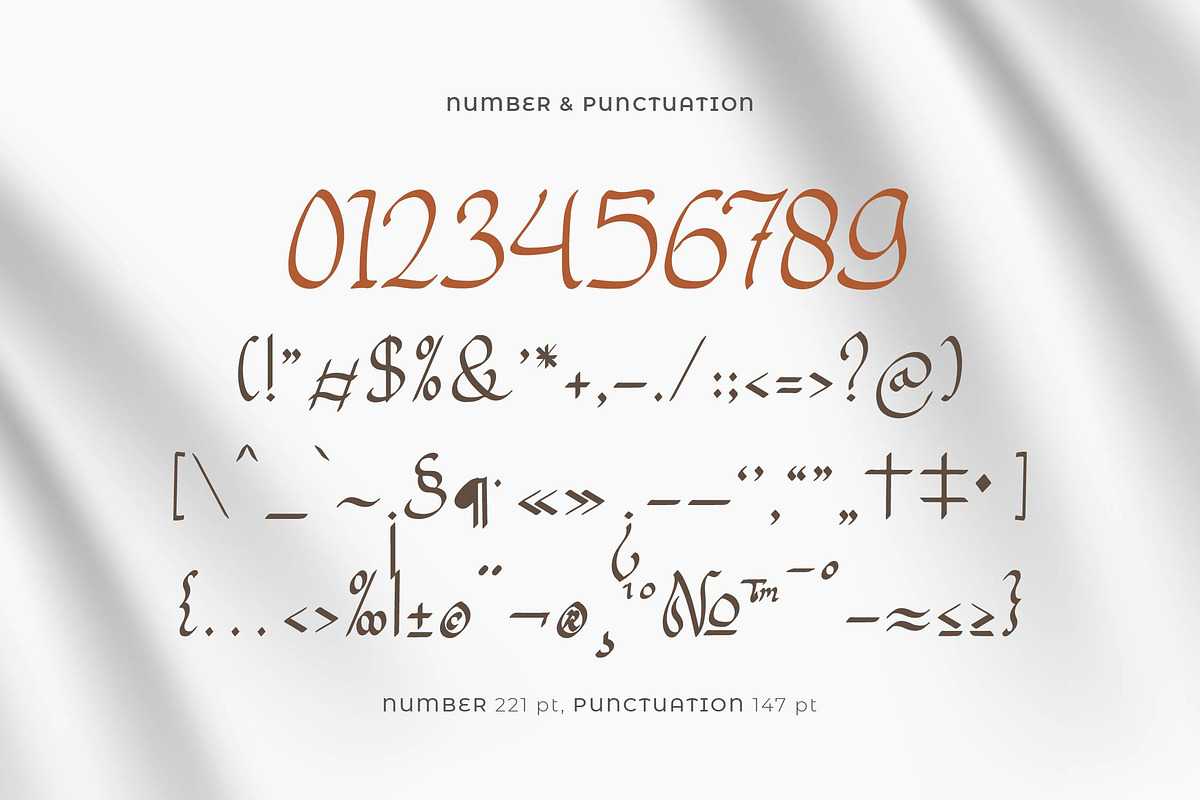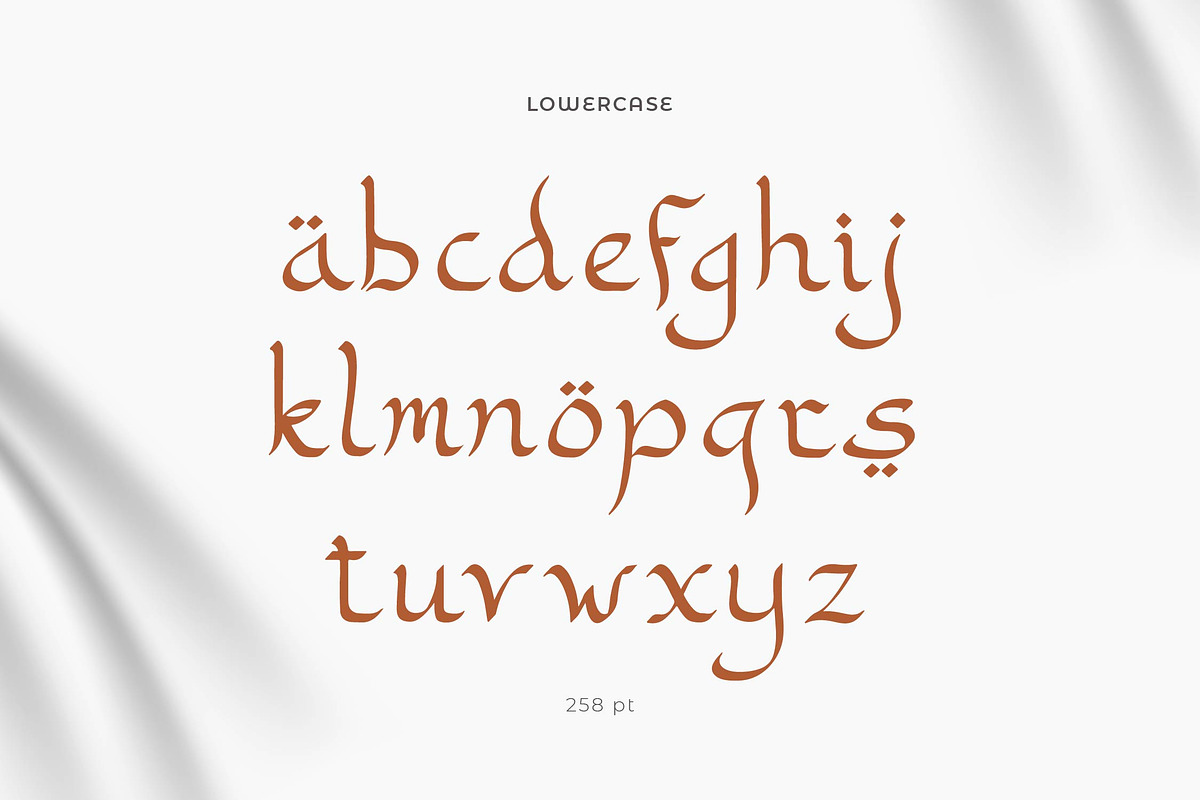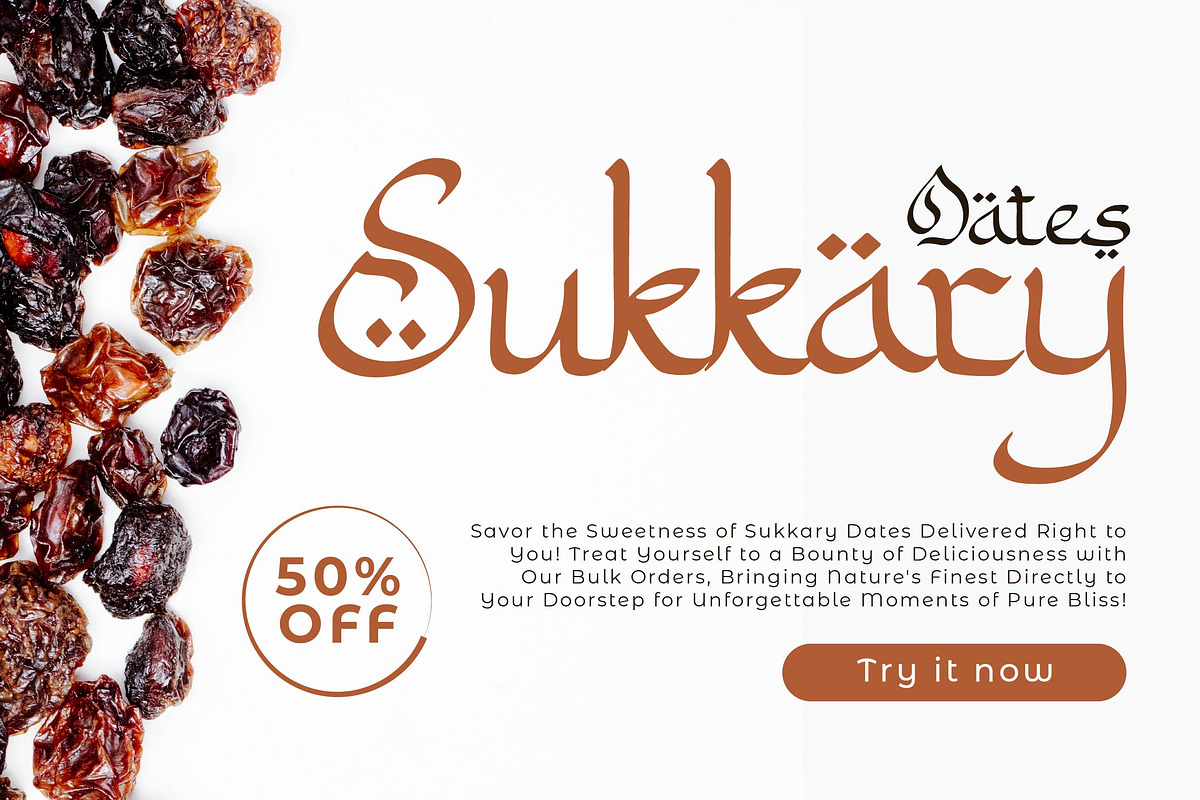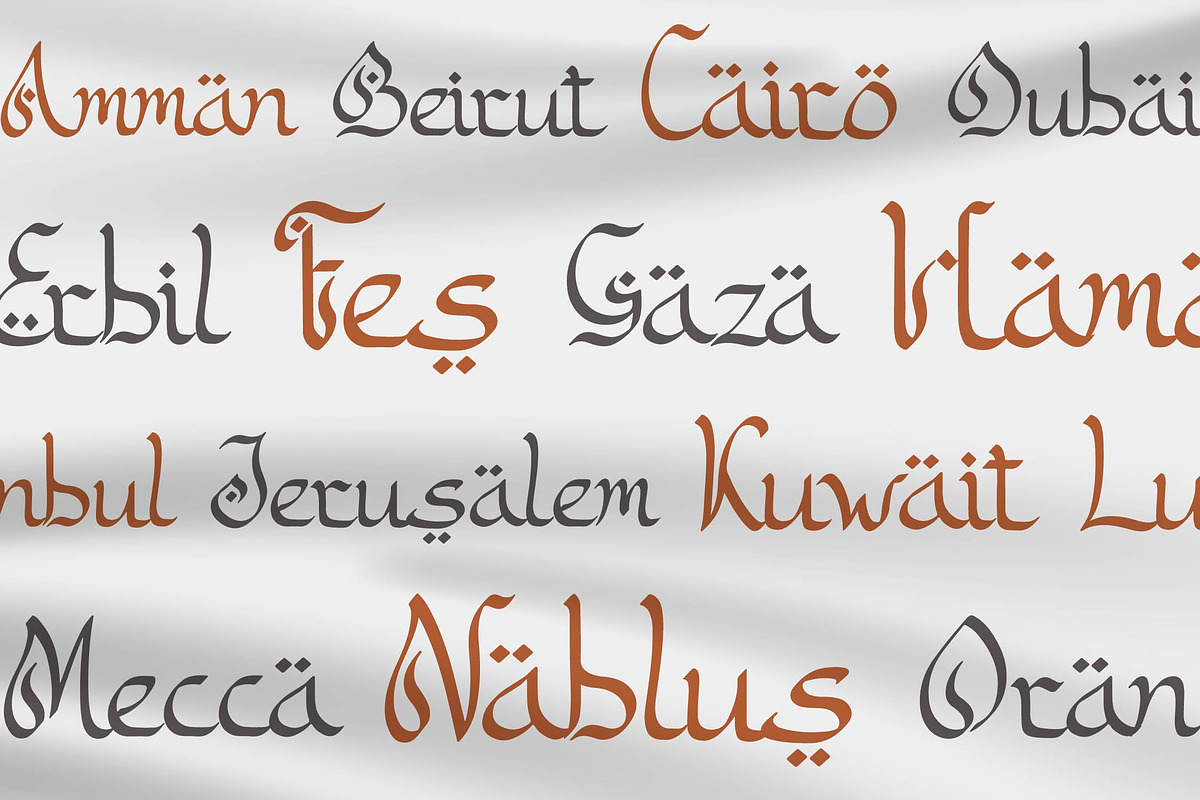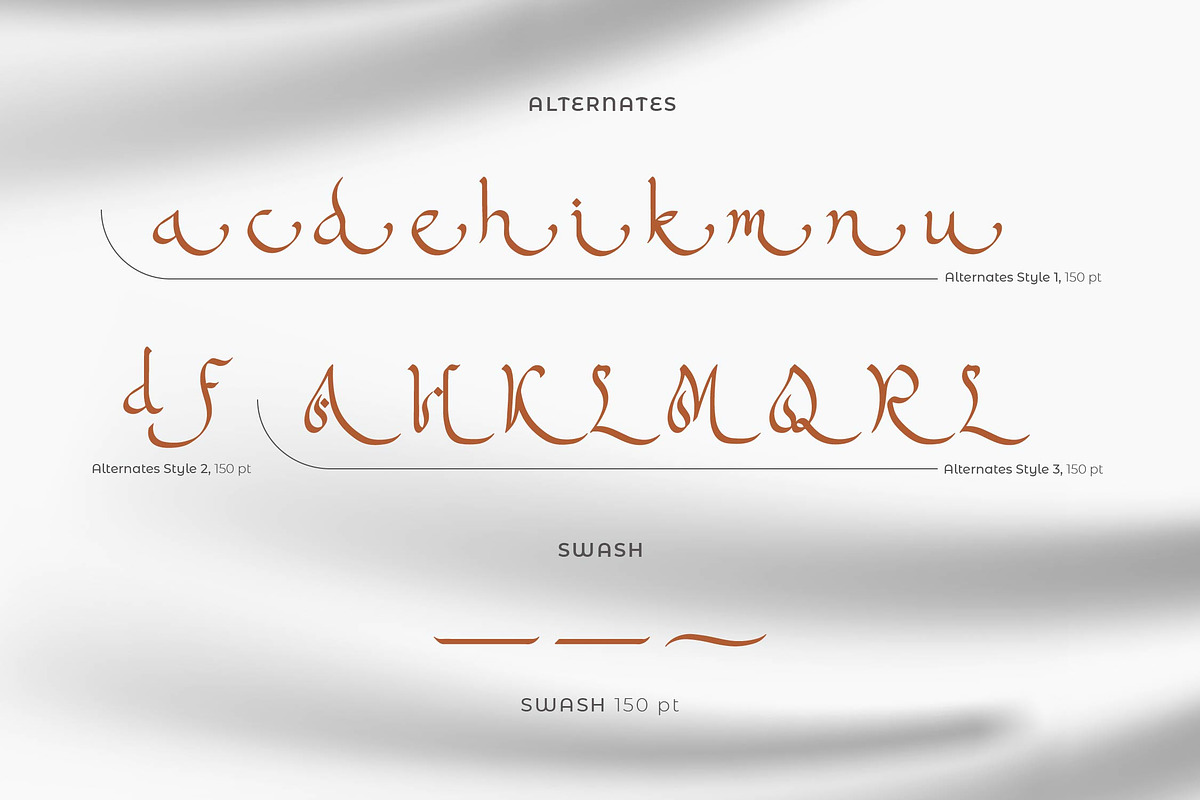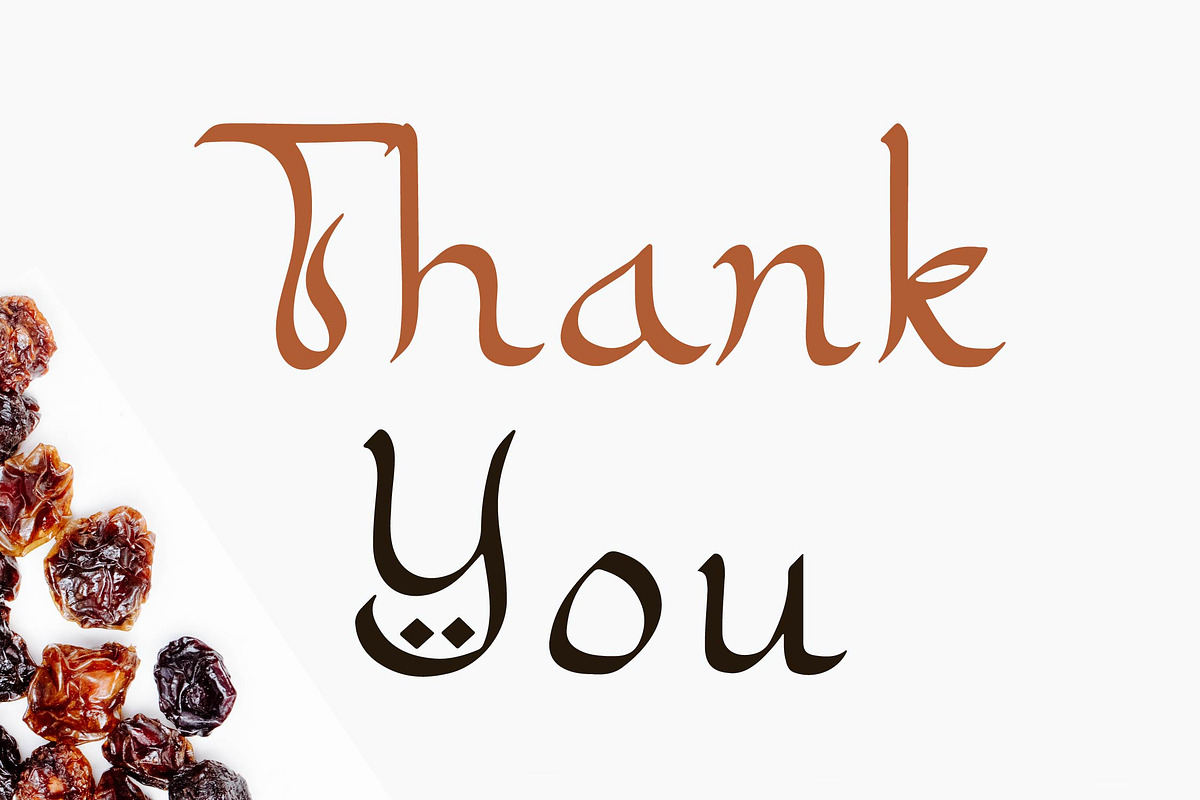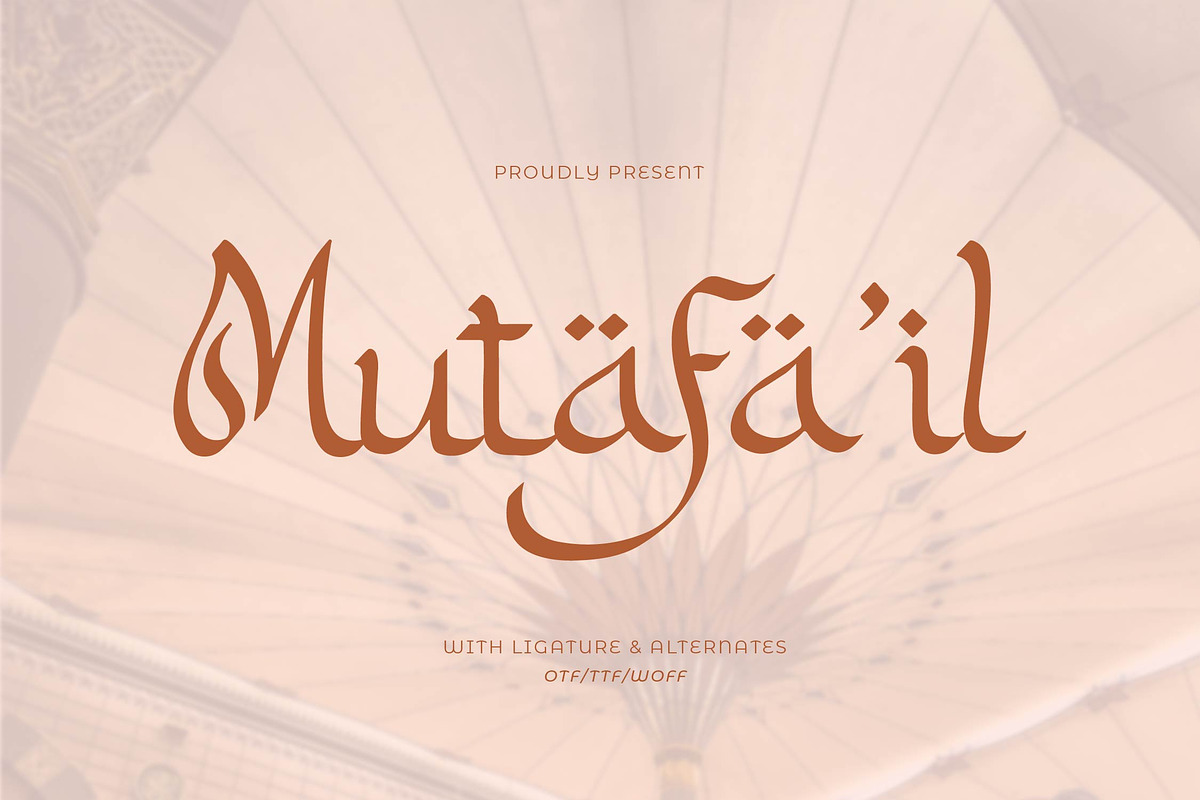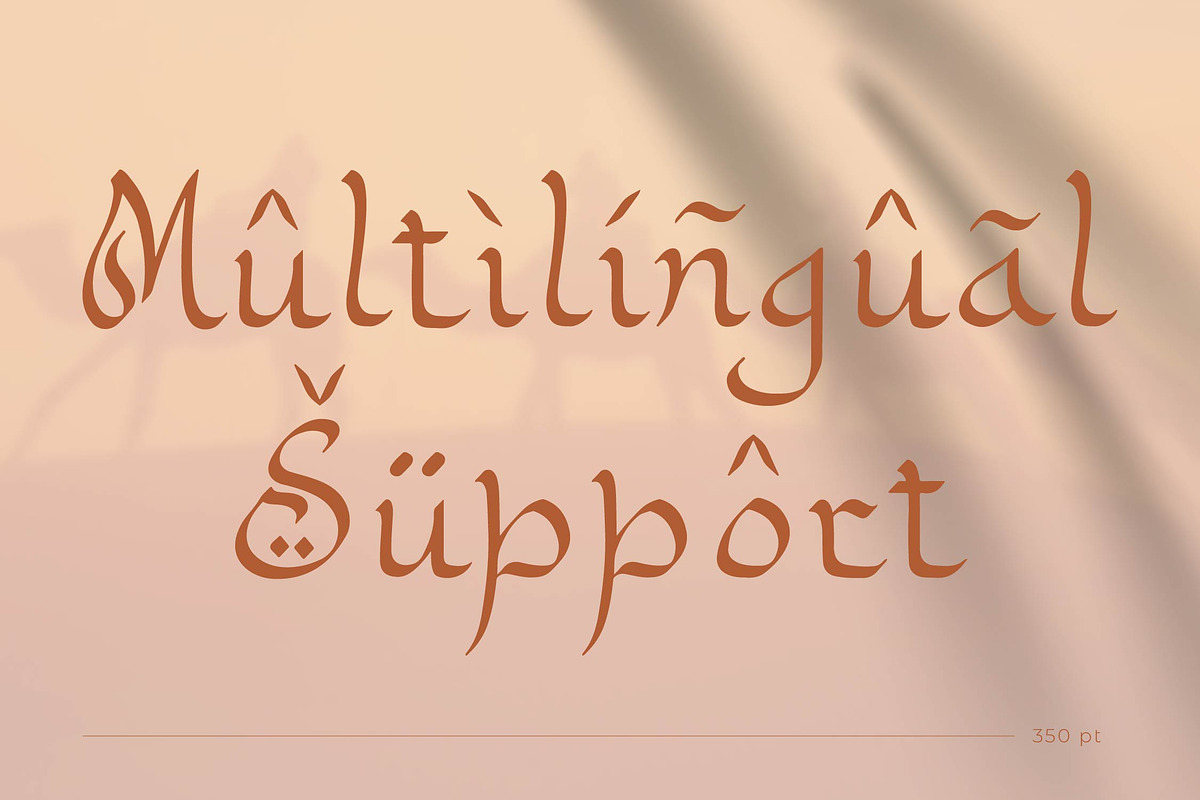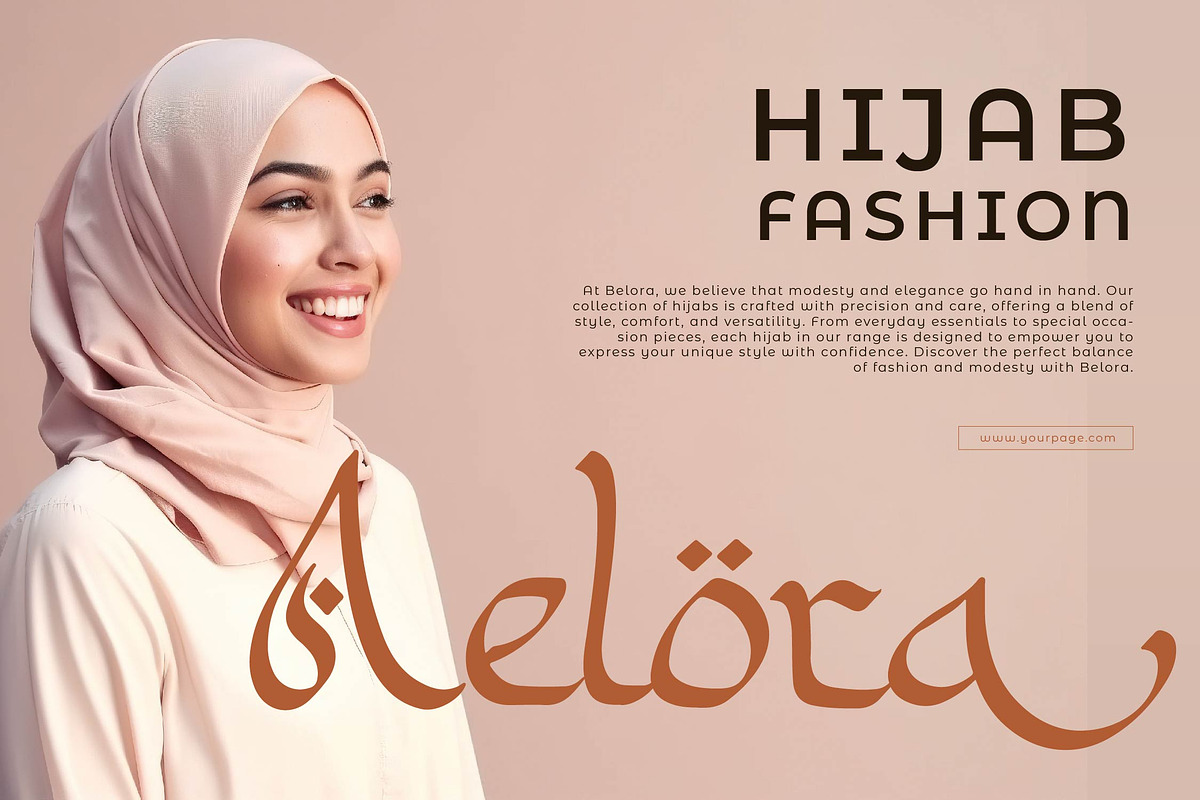
Mutafa’il | Arabic Style Typeface
Mutafa’il | Arabic Style Typeface, from Gracetypestudio, suitable for any projects such as: logos, branding projects, homeware designs, product packaging, mugs, quotes, posters, shopping bags, t-shirts, book covers, name card, invitation cards, greeting cards, label, photography, watermark, special events, and all your other lovely projects that need a Arabic Style Typeface taste.